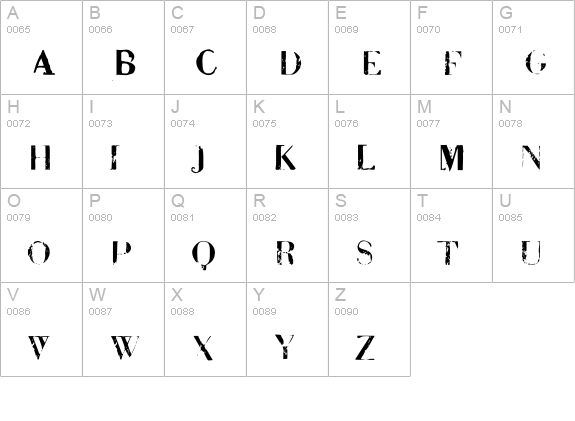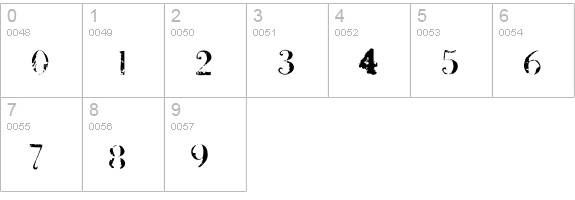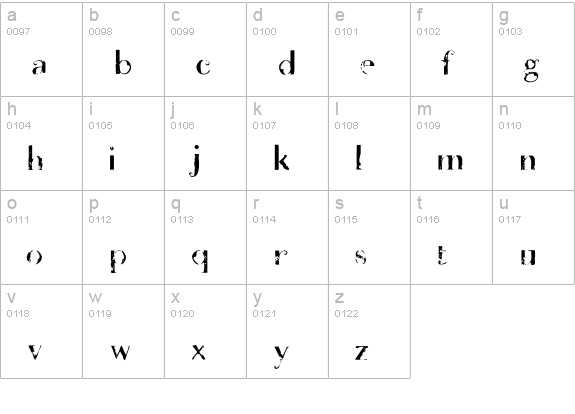
Introducing BadDeni font, a bold and modern typeface designed to make a statement. With its edgy style and sharp lines, BadDeni is perfect for adding a touch of attitude to your designs. This versatile font is suitable for a wide range of projects, from branding to posters to social media graphics. The best part? BadDeni is completely free to download at FontsMarket.com. Take advantage of this opportunity to add a unique and eye-catching font to your collection. Stand out from the crowd with BadDeni and let your creativity shine.